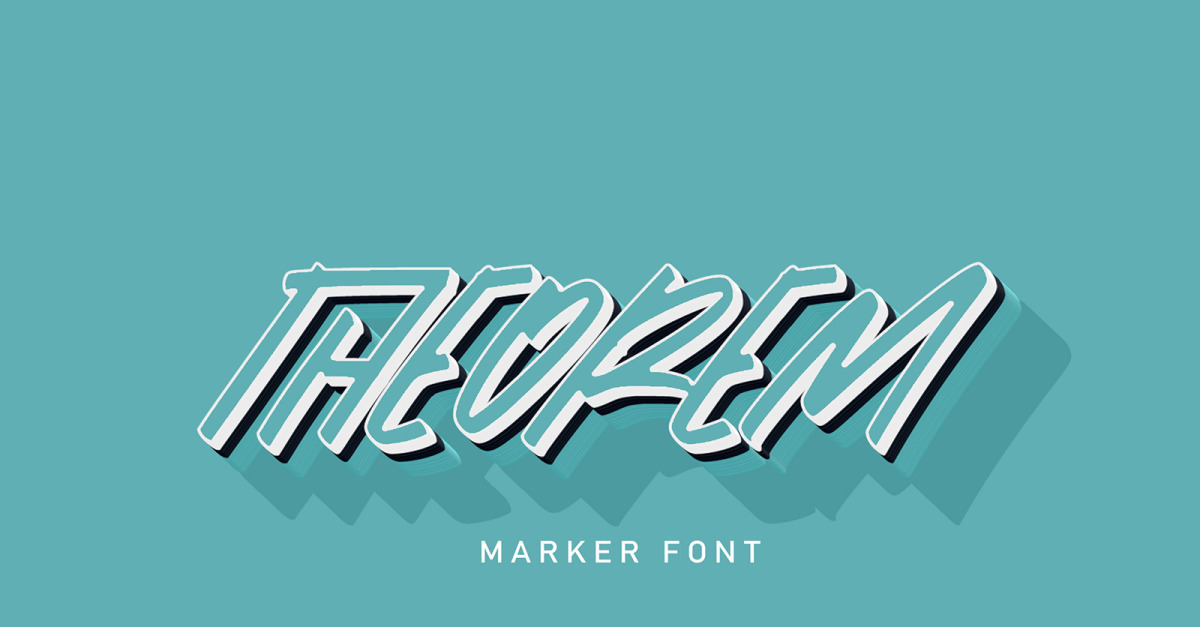
Theorem | Marker Font
**Theorem | Marker Font** with a calligraphy style, So beautiful on invitation like greeting cards, branding materials, business cards, quotes, posters, and more!